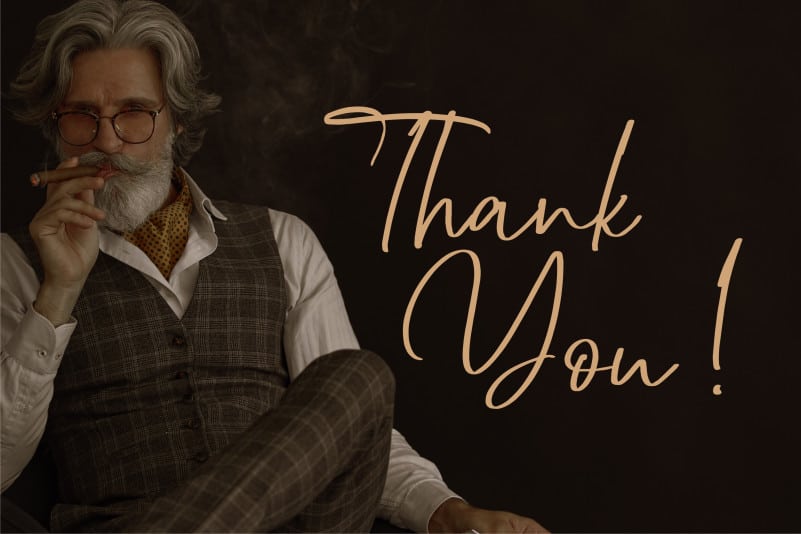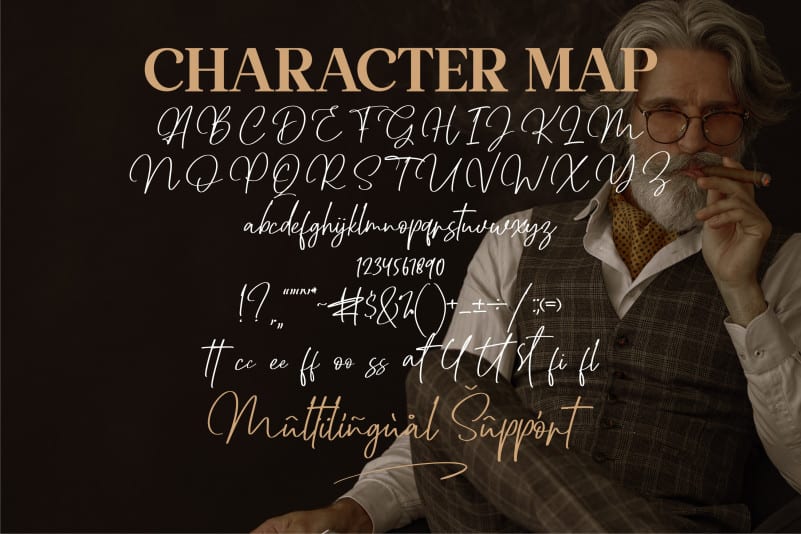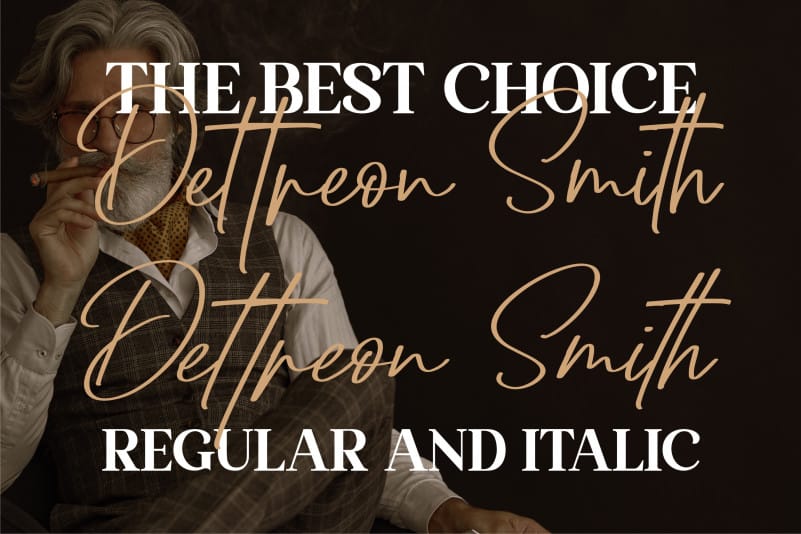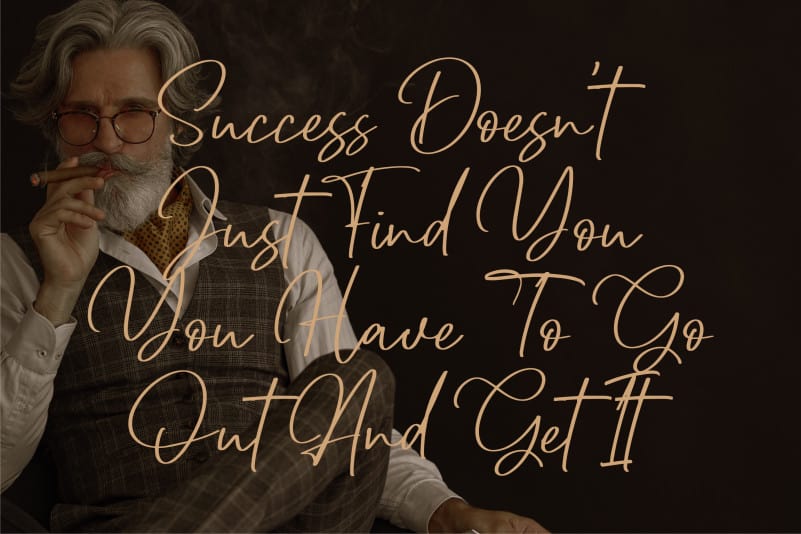
Dettreon Smith Font
Dettreon Smith Script Font, from Letterena, is a signature font, suitable for any projects such as: logos, branding projects, homeware designs, product packaging, mugs, quotes, posters, shopping bags, t-shirts, book covers, name card, invitation cards, greeting cards, label, photography, watermark, special events, and all your other luxury projects that need a script Signature taste.